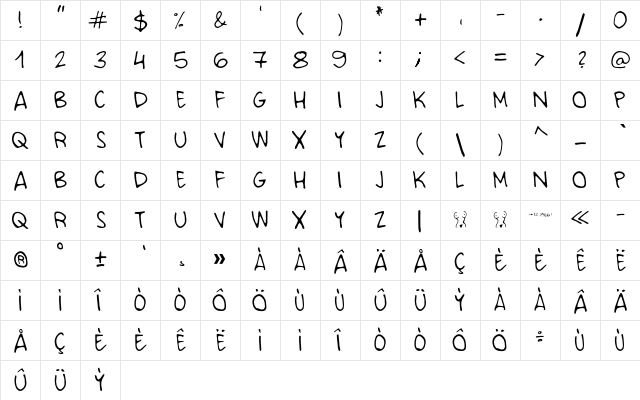
CZINEGE Regular
Foundry: AXN
Designer: Fanyuvo
Design Context for CZINEGE
CZINEGE is a composed and adaptable typeface that performs quietly and consistently across a wide range of design contexts.